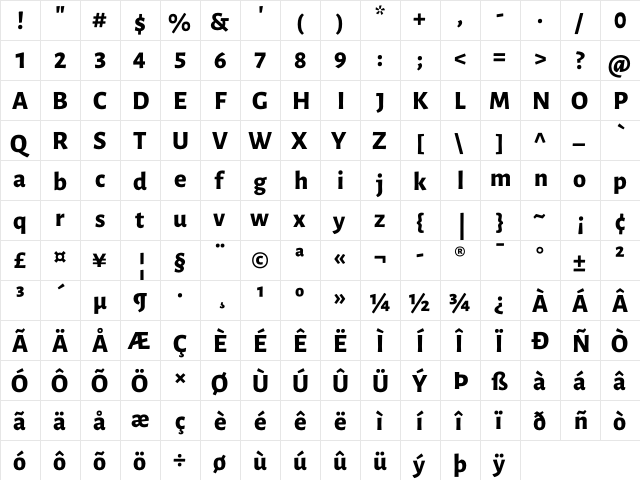
Luna Extra Bold Regular
| Foundry | Huerta Tipografica |
| Designer | Juan Pablo del Peral |
Design Context for Luna Extra Bold Typeface
Luna Extra Bold takes a measured approach to typography — its balanced proportions and neutral character make it a reliable workhorse for both digital and print work. Its bold stroke weight gives it real presence on the page.